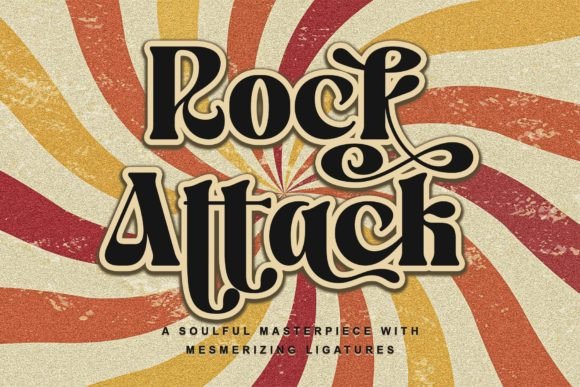
In a world where digital expressions reign supreme, your designs have the power to set you apart and make a resounding impact. Allow us to introduce "Rock Attack," a serif font that embodies strength, character, and sophistication. Its bold and commanding presence demands attention, adding a touch of authority and professionalism to your creative endeavors.
Unleash the potential of Rock Attack and watch as your designs transform into captivating masterpieces. Whether crafting editorial layouts, branding materials, or YouTube thumbnails, this font becomes your secret weapon to enthrall your audience and leave an enduring mark. Experience the thrill of standing out from the crowd as your designs command attention, fueled by the striking elegance of Rock Attack.
Visualize your words leaping off the screen, brimming with confidence and gravitas. Craft headlines that resonate with power, body text that exudes authority, and logos that leave an indelible impression. Rock Attack is your trusty companion, elevating your designs to new heights of excellence.
Embrace the versatility of Rock Attack, a font that adapts effortlessly to a myriad of design styles. Its strong and confident letterforms lend themselves seamlessly to both traditional and modern aesthetics. Witness the transformation as your designs take on a renewed sense of purpose, captivating your audience with their unwavering presence.
But Rock Attack's allure extends beyond its visual prowess. This PUA-encoded font grants you access to a treasure trove of glyphs and ligatures, empowering you to unleash your creativity and add intricate details to your designs. Experiment with diverse combinations, exploring endless possibilities to create truly bespoke and captivating visual experiences.
With Rock Attack as your creative ally, you unlock the potential to make a powerful statement, leaving a lasting impression on your audience. Seize this opportunity to elevate your designs, captivate your viewers, and establish a legacy of excellence. Dare to embrace the boldness and sophistication of Rock Attack, and embark on a journey of design greatness.